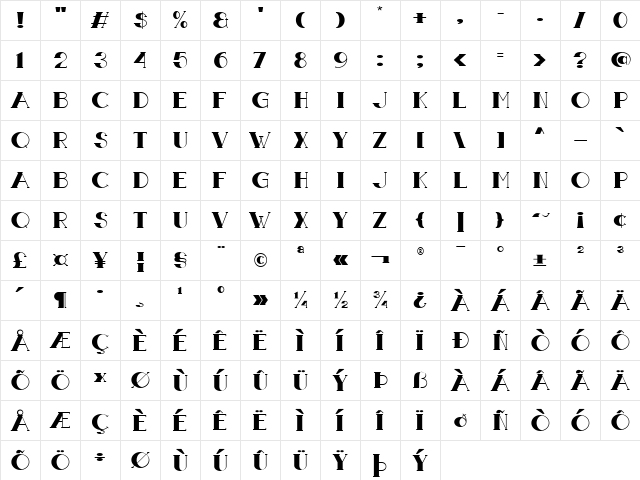
Boldatin ExtBd Regular
| Foundry | Patria Ari Typestudio |
| Designer | Patria Ari Wijonarko |
Design Context for Boldatin ExtBd Typeface
Boldatin ExtBd is a composed and adaptable typeface that performs quietly and consistently across a wide range of design contexts. Its bold stroke weight gives it real presence on the page.